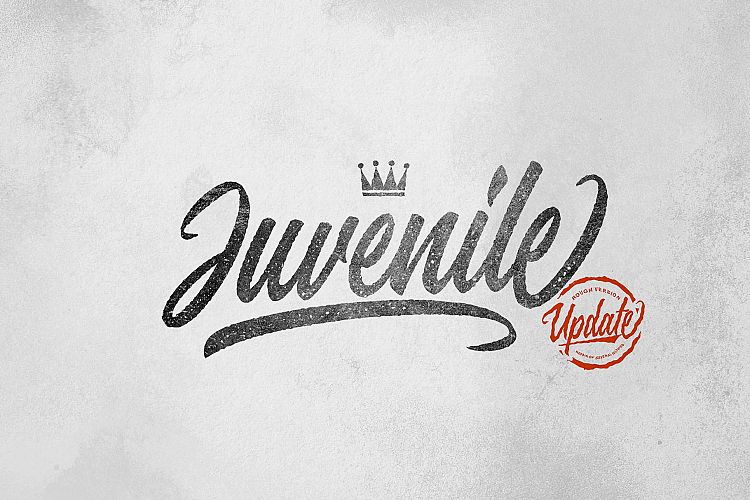
Juvenile Typeface
Hello buddy! This is a fun brush font. Streetwear and vintage made with love handlettering style. Ideal for branding, logos! Introducing Juvenile Font! The Juvenile is a hand lettering typeface with a brush style. It’s ideal for logos, t-shirts, product packaging, headers, posters, greeting cards, and much more! Juvenile font includes a complete set of uppercase and lowercase letters, as well as multi-language support, numbers, punctuation, ligatures, alternatives.